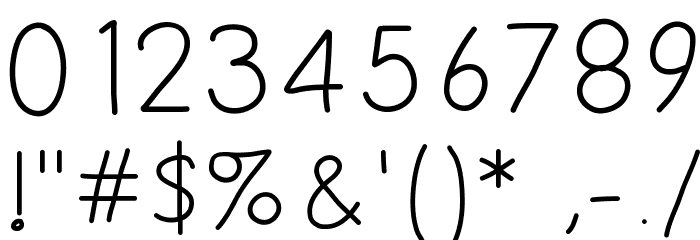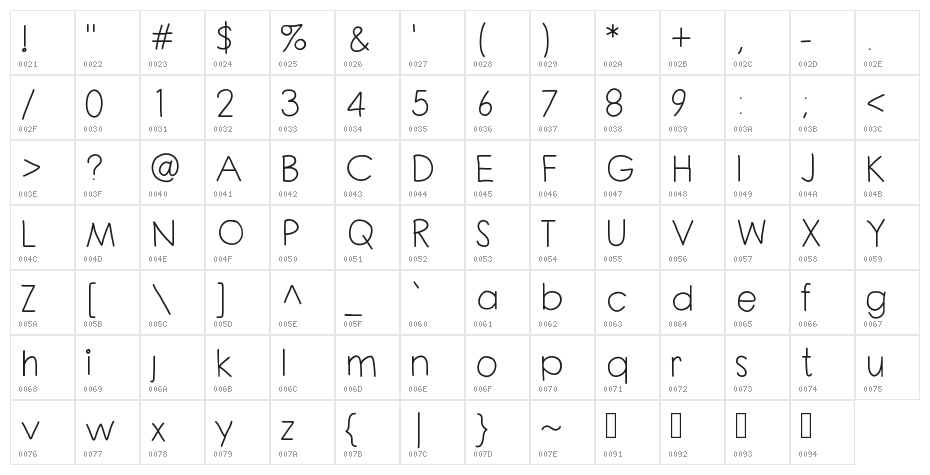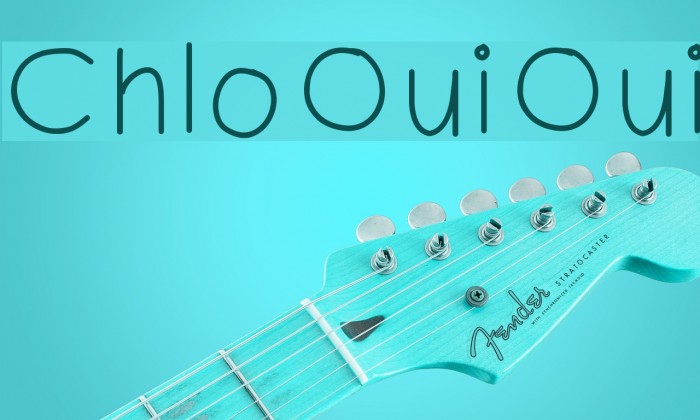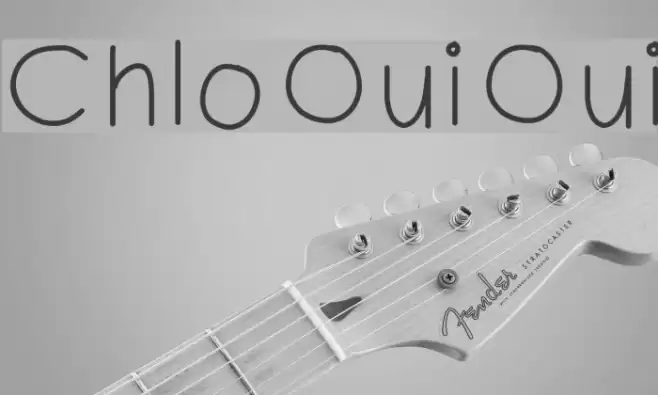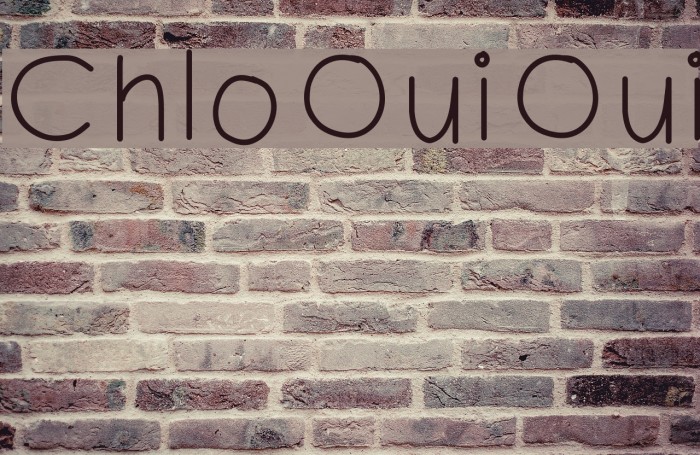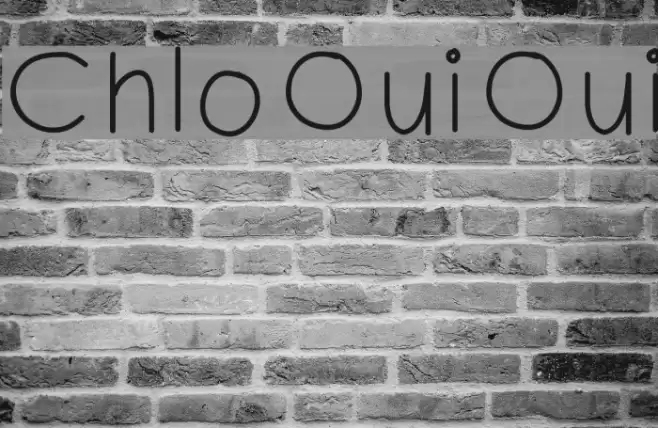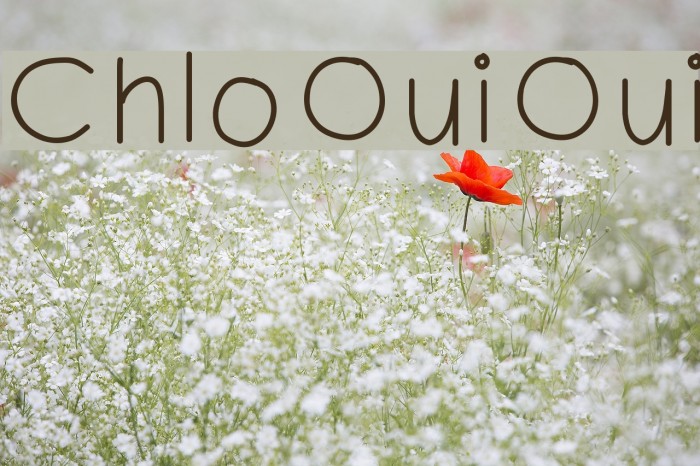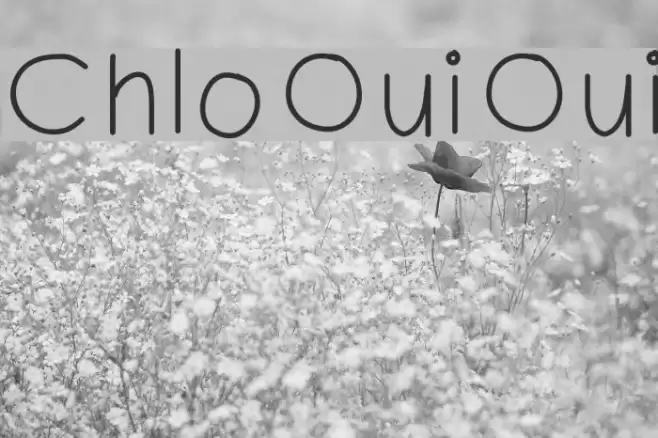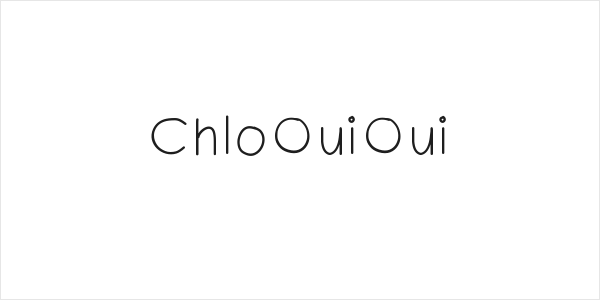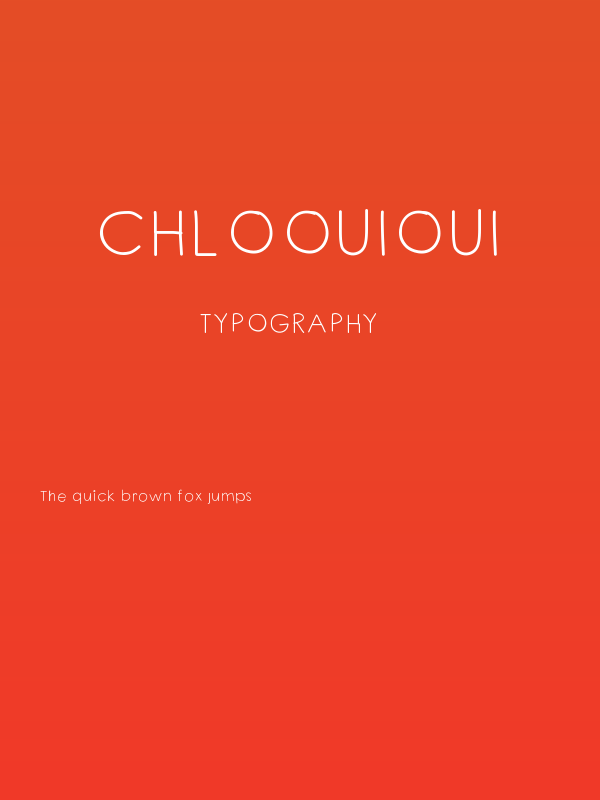
ChloOuiOui Font
ChloOuiOui Description
This font features a playful and whimsical design with a handwritten style. The characters are rounded and slightly irregular, giving a casual and friendly appearance. The uppercase and lowercase letters maintain a consistent flow, while the numerals and special characters complement the overall aesthetic. The strokes are uniform in thickness, contributing to a clean and approachable look. This font is suitable for projects that require a personal touch, such as invitations, greeting cards, or children's books.
| Use Case | Headlines, Informal text, Branding |
| Proposed Projects | Ideal for invitations, greeting cards, children's books, and casual branding. |